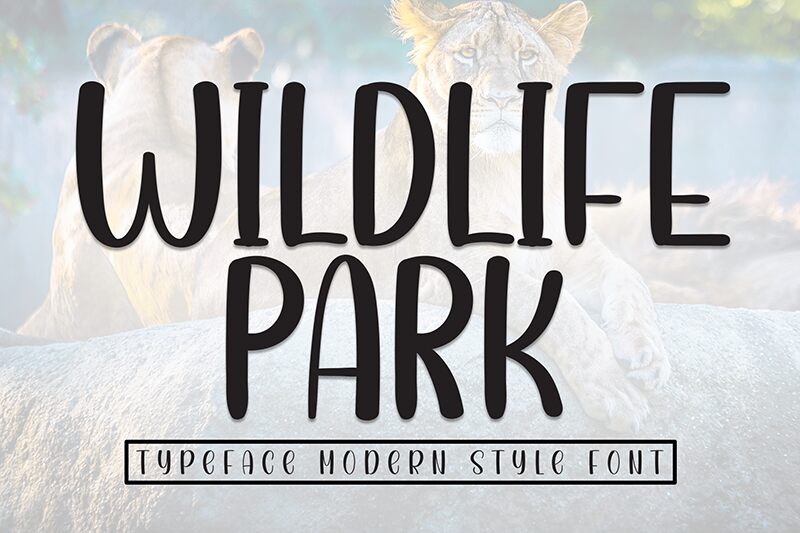
Wildlife Park
Wildlife Park font by Andi Moz is a brush typeface with raw artistic vibes. It captures a hand-drawn feel alongside an authentic organic appearance that creates a perfect combination of style, character, and class. Its letters are inspired by natural beauty and forms which equip it with its overall modern aesthetic and informal yet mesmerizing character.
Use Wildlife park freely in projects related to the environment, parks, wildlife awareness, games about nature or animals, artistic gifts portals, e-commerce stores selling wildlife-related items or eco-friendly products + many more ideas!